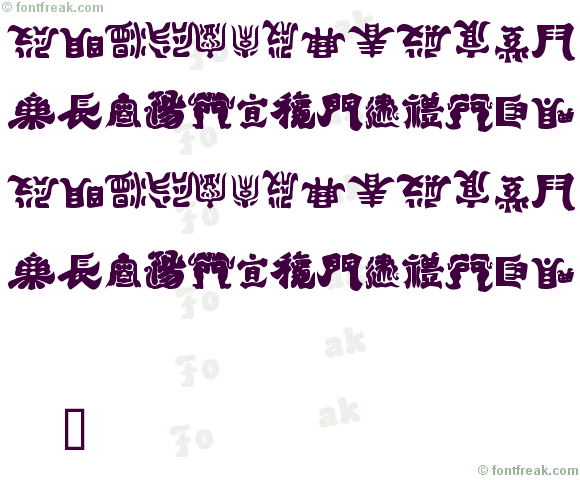
Kemuri
Kemuri, designed by Rob Dobi, is a distinctive display font that falls under the decorative category. Known for its bold, expressive characteristics, the font showcases a unique blend of playful and edgy elements, making it an eye-catching choice for various design projects. The stroke weight is relatively thick, with irregularities that give it a handcrafted feel, contributing to its artistic flair. The contrast between the strokes adds a dynamic quality, while the spacing is thoughtfully considered, ensuring legibility even at larger sizes. Decorative elements are prominent, featuring jagged edges and organic shapes that evoke a sense of movement and creativity.
This font is particularly well-suited for a range of creative applications. It shines in contexts such as movie posters, where its dramatic style can evoke strong emotions and capture attention. Additionally, Kemuri works effectively for restaurant menus, bringing a unique personality that can reflect the dining experience. It is also an excellent choice for promotional materials, such as flyers or social media graphics, where standing out is essential. Graphic designers, small business owners, and content creators will find this font a valuable asset in their toolkit, allowing them to convey a distinct brand identity or artistic vision.
What sets the Kemuri font apart is its ability to combine a whimsical aesthetic with a strong visual presence. It breaks away from conventional typefaces, offering a refreshing alternative that can elevate any project. Whether you’re looking to create a striking logo or an engaging advertisement, the Kemuri font free download provides an opportunity to infuse your work with originality and flair. Embrace the uniqueness of Kemuri and let it inspire your next creative endeavor.